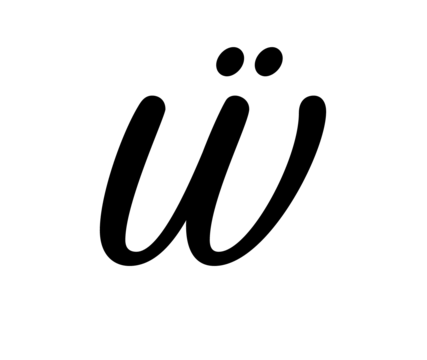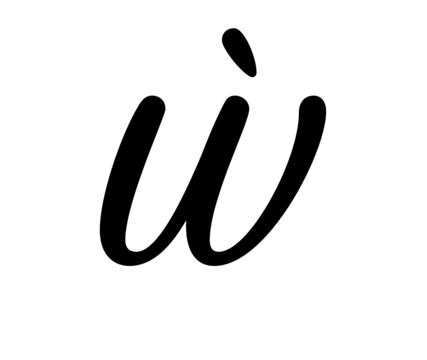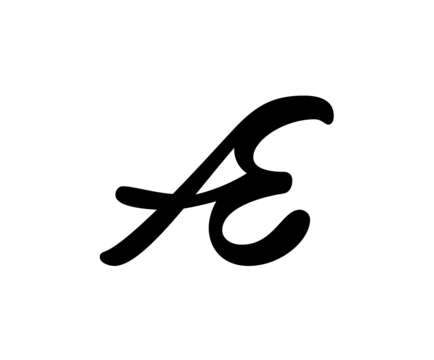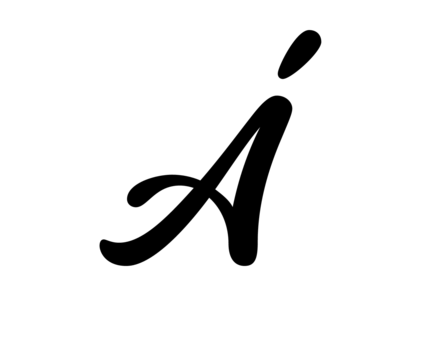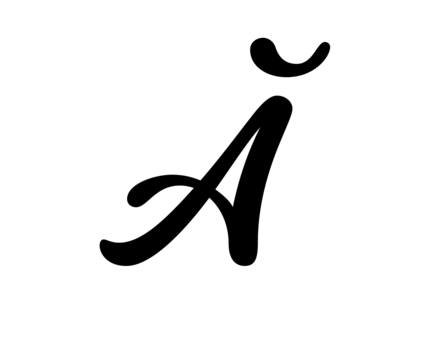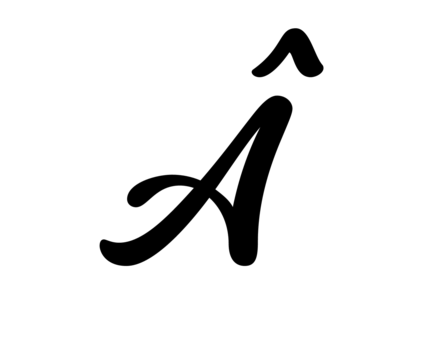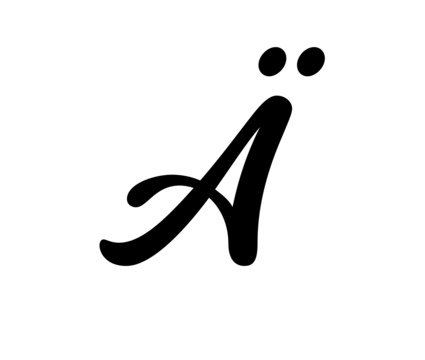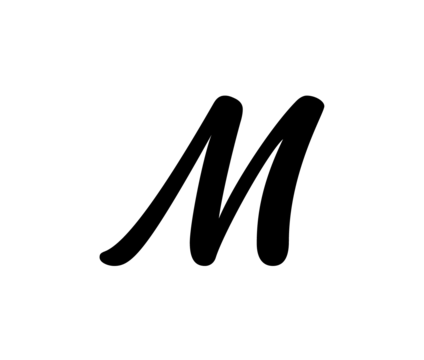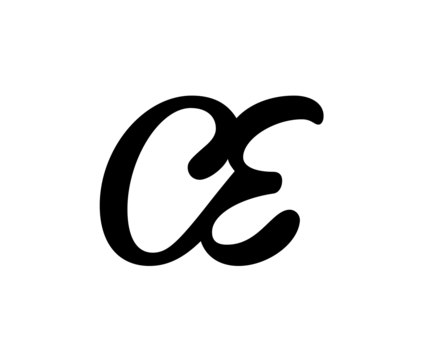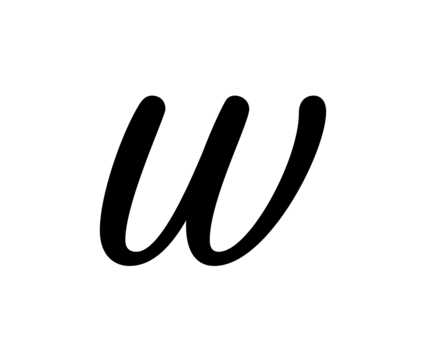
Brushware is an informal, brush-style script design. The typeface is a connecting script. Because it simulates a sign writer’s brush strokes, the font’s letterforms have visible contrast, and they are all sloped to the right. Brushware is equipped with several OpenType features that make text set in the font look more lively and spontaneous. For instance, there are ligatures for the letter nominations “fr”, “fs”, “jj”, “oo”, “or”, “os”, “ot”, and “tt” – in addition to the typical f-ligatures. These ensure the flow of the brush from one letter to another looks authentic – like the word the pair is in was written by a person. Brushware also has swash alternates for “g”, “j”, “q”, “t”, “y”, and “z”, as well as three Stylistic Sets. Stylistic Set 1 contains alternate forms for all 26 caps, plus capital letters with “accents” or diacritical marks. Stylistic Set 2 offers another form of the “E”, while Stylistic Set 3 has variants for “b”, “d”, “f”, “g”, “h”, “j”, “k”, “l”, “y”, and “z”. Another OpenType feature allows users to substitute oldstyle figures into their texts.
| Family Name | Brushware |
| Designer(s) | Parvez Ansari |
| Classification | Script |